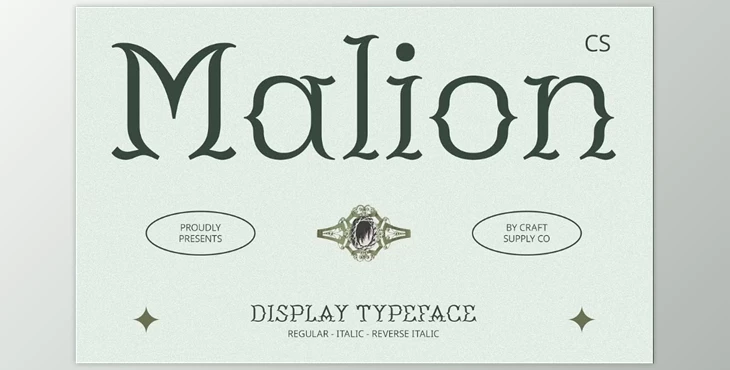
CS Malion – Classic Font Creative Market:
CS Malion – Classic Font is a sophisticated display typeface designed to evoke elegance and luxury. Its graceful letterforms, meticulous detailing, and balanced proportions make it ideal for high-end design projects. This timeless font strikes a harmonious aesthetic with its blend of classic and modern elements, ensuring versatility across branding, editorial, and formal applications.
The inclusion of subtle decorative elements and refined curves enhances its opulent appeal, making it a perfect choice for projects demanding exclusivity and attention to detail.
Some great features of CS Malion – Classic Font Creative Market:
- Font Styles: Includes CS Malion Regular, Italic, and Reverse Italic.
- Character Set: Uppercase and lowercase letters, numerals, and standard punctuation.
- Multilingual Support: Includes accented characters for diverse language compatibility.